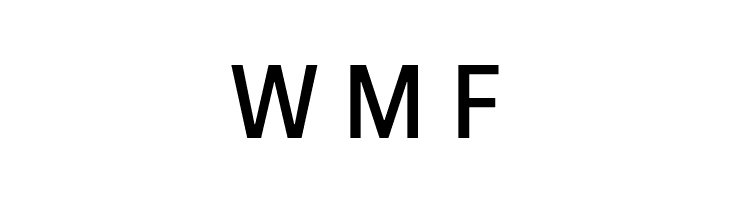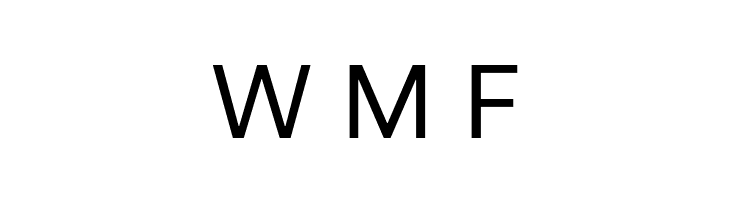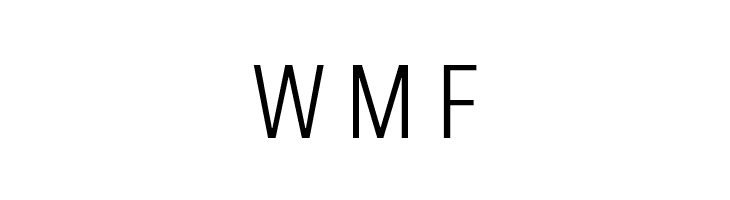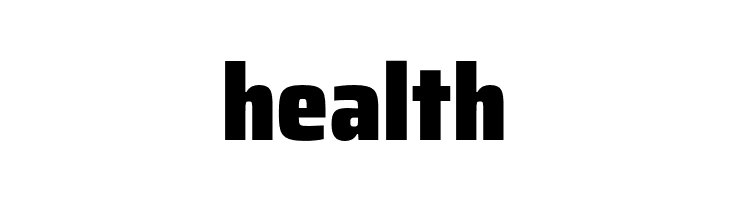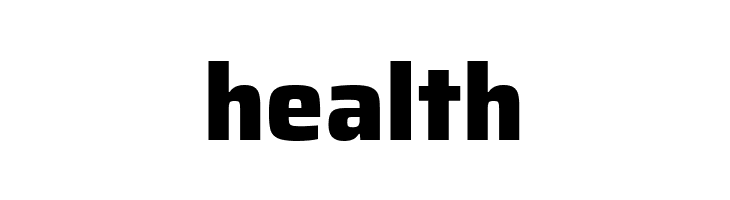
A modern, semi-condensed font with a clean and professional look.
A modern, semi-condensed sans-serif font with bold, uniform strokes.
A sleek, modern sans-serif font with thin, elongated characters.
A geometric sans-serif font with a clean, modern look and uniform stroke widths.
A sleek, modern font with thin strokes and a semi-condensed structure.
A modern, condensed sans-serif font with a light and airy appearance.
A modern, condensed font with bold, uniform strokes and a sleek design.
A bold, semi-condensed sans-serif font with a modern and impactful style.
A bold, assertive typeface with thick strokes and a strong presence.